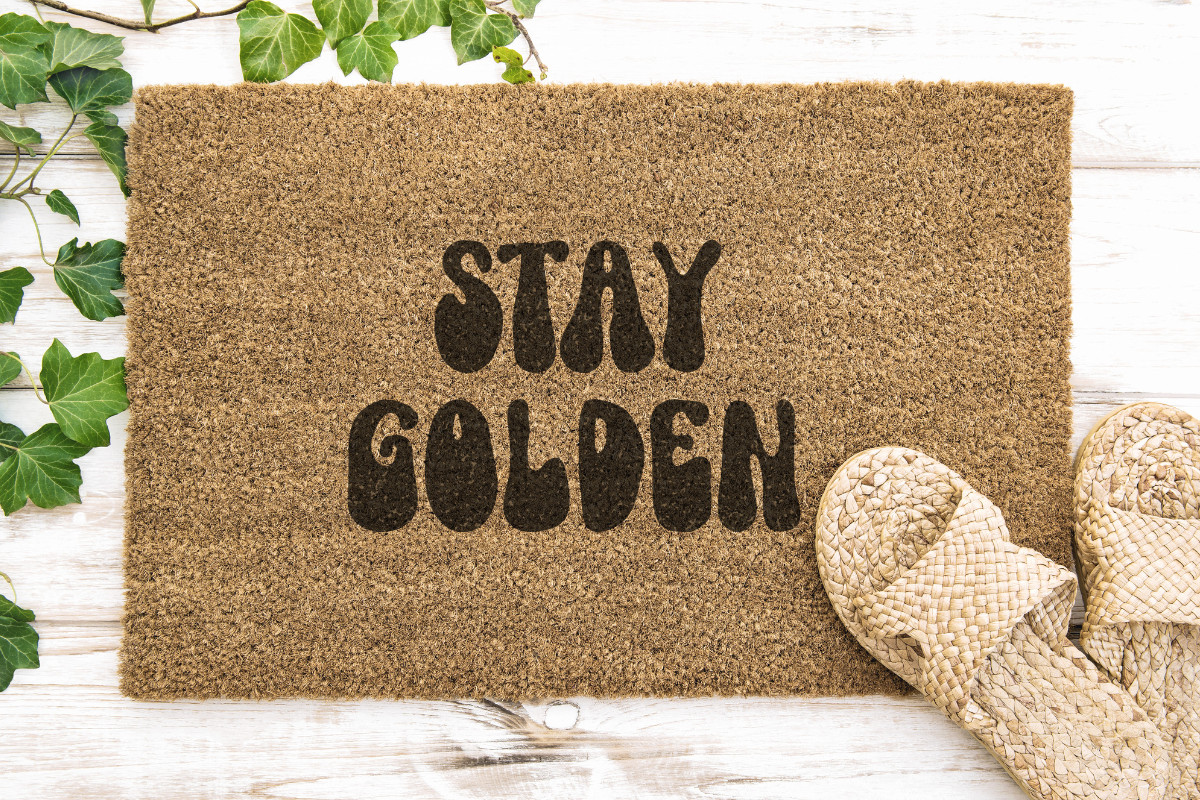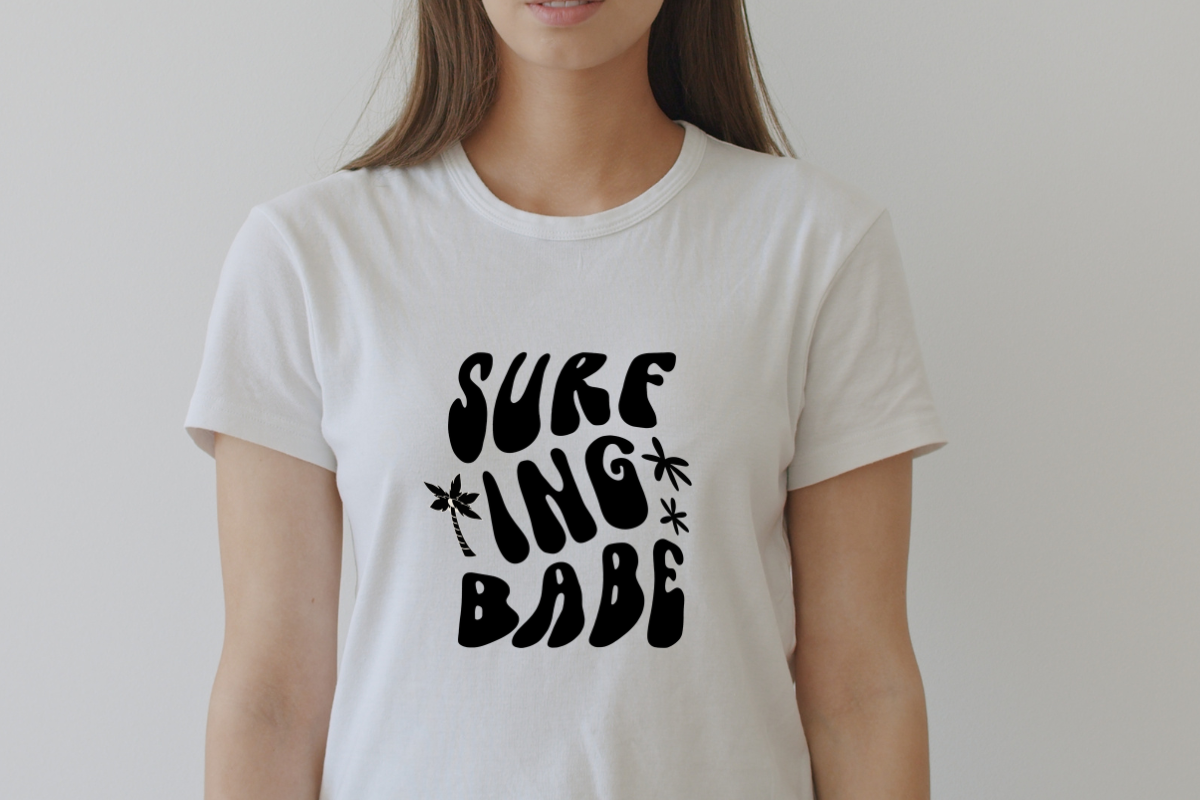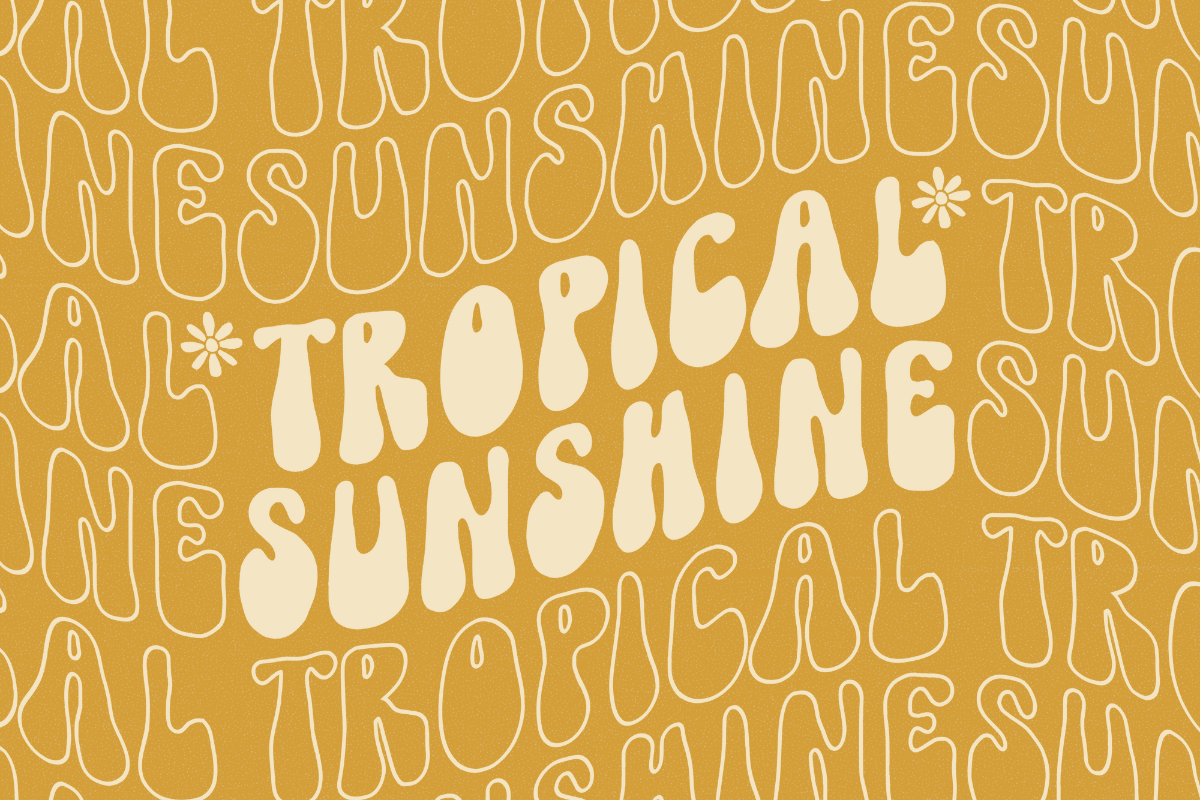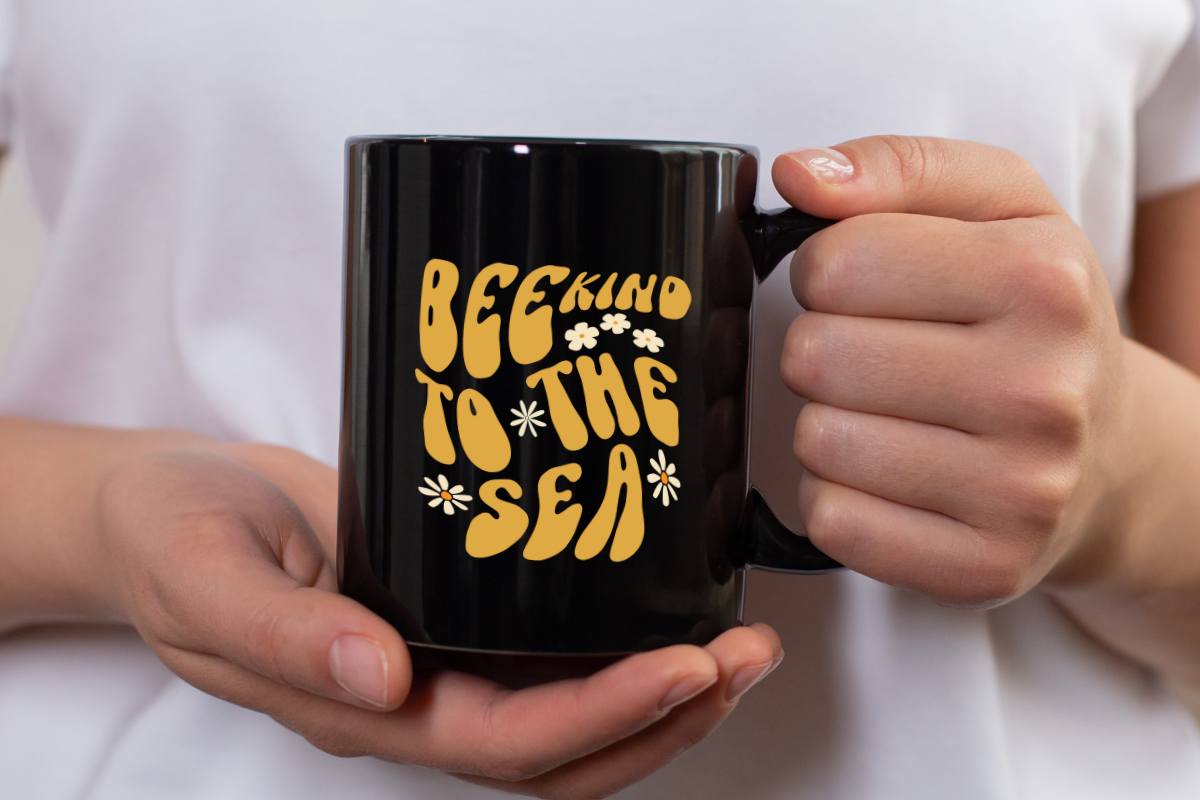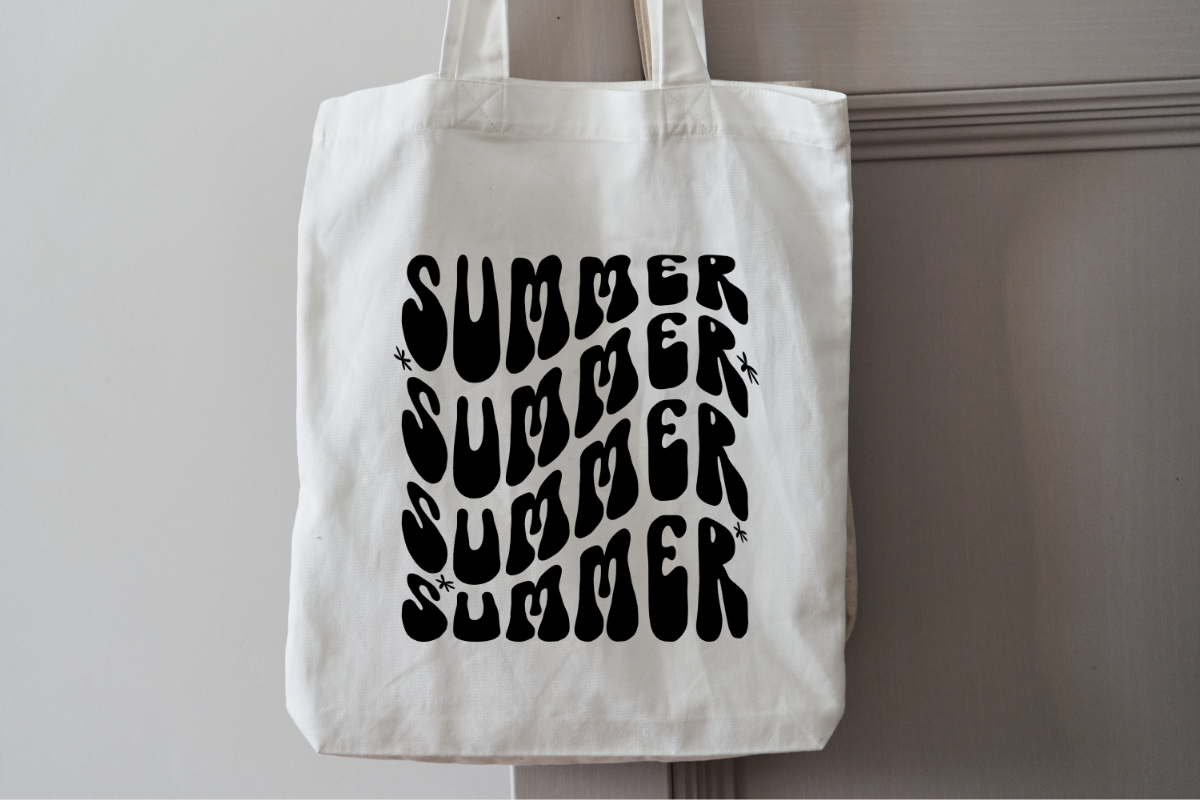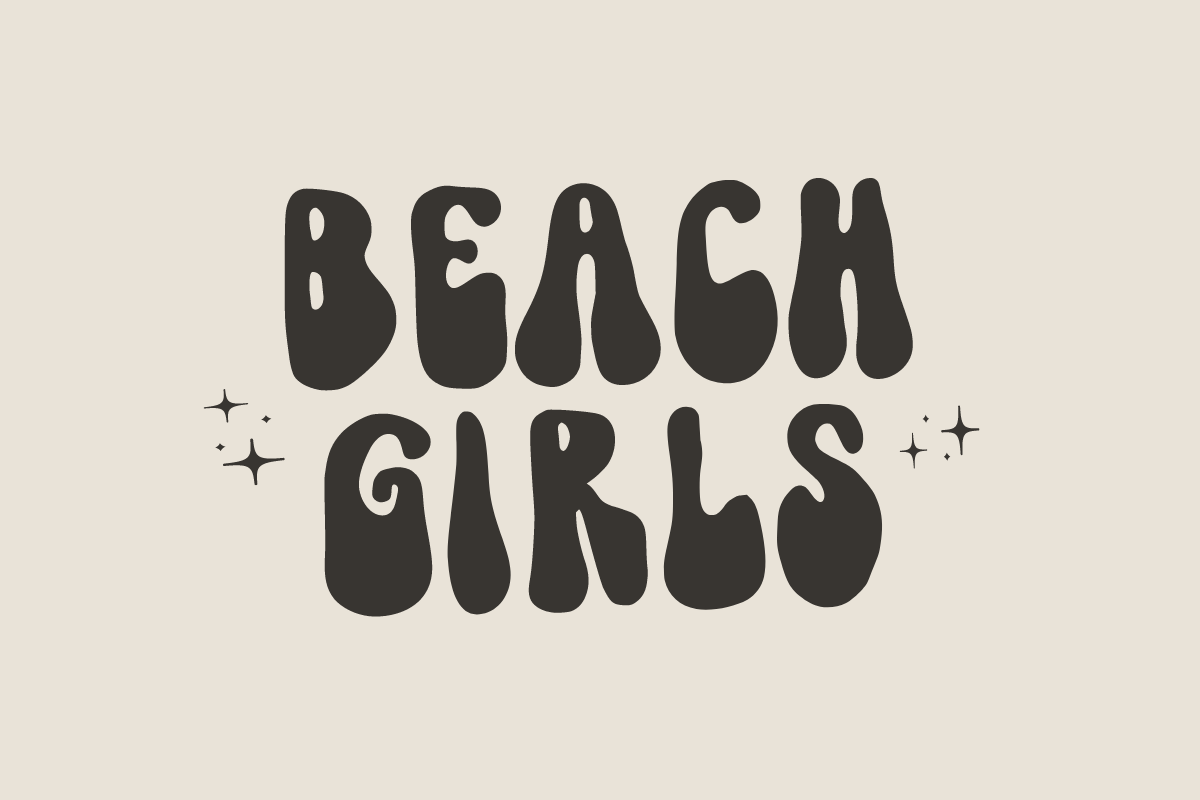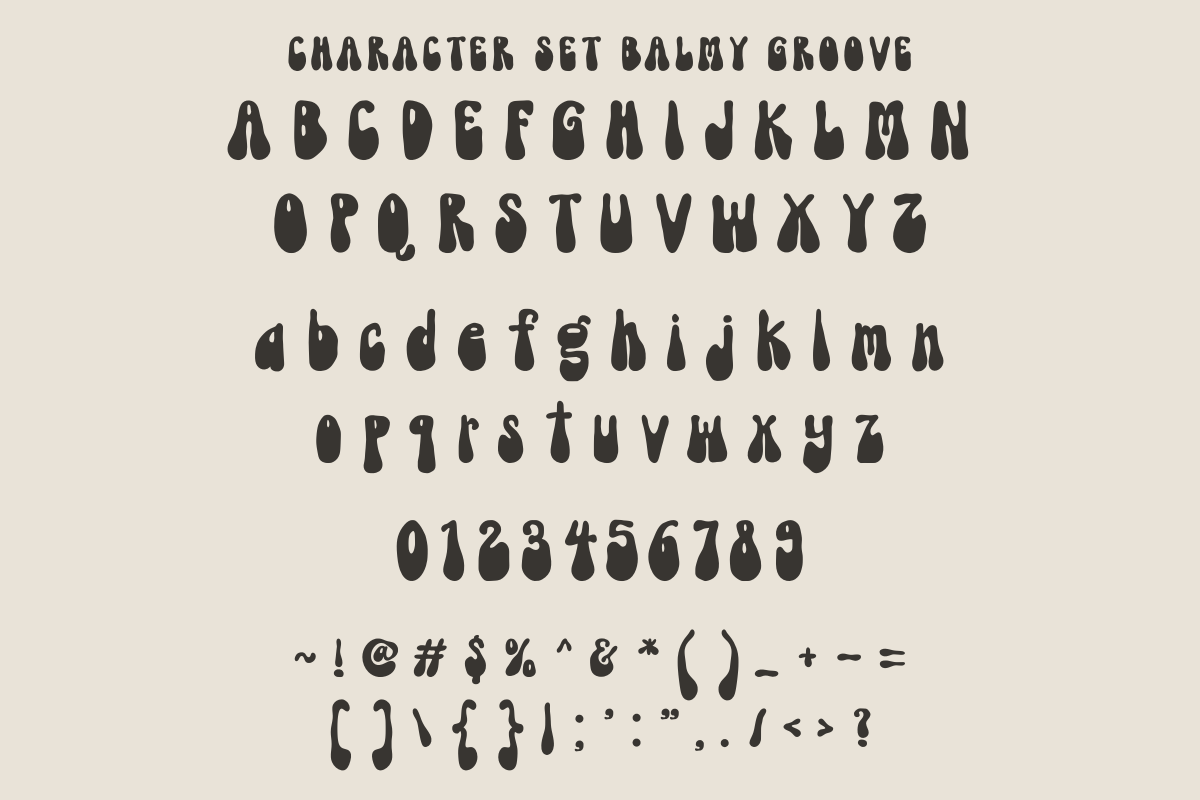
Balmy Groove
Balmy Groove is a charming retro groovy font. Filled with vintage vibes and a touch of tropical charm, Balmy Groove has an enthusiastic beat, and it’s a desirable partner for everything from mood-evoking quotes and eye-catching t-shirt designs to unique tote bag prints and clever packaging.